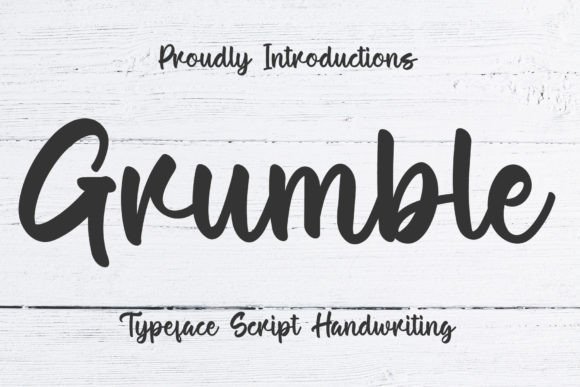
Introducing Grumble, the exquisite script font designed to captivate and enchant your designs. Crafted by the skilled artisans at Bintang Studio, this font whispers elegance and invites you to indulge in its alluring curves.
Escape the mundane and embrace a world where words dance with grace and fluidity. Grumble's effortless charm transforms ordinary text into extraordinary expressions, captivating the hearts of readers and players alike. Its intricate details and smooth flow evoke a sense of wonder, making it the perfect choice for fashion branding, editorial designs, and the enchanting realm of mobile games.
With Grumble, you have a font that transcends boundaries. Its versatility knows no limits, empowering you to create captivating headlines, unforgettable logos, and immersive game experiences. Imagine your creations adorned with the whimsical touch of Grumble, leaving an unforgettable mark on every screen and page.
Let the magic of Grumble ignite your designs. Embrace its timeless beauty and allow your projects to radiate with an enchanting charm that will leave your audience spellbound.